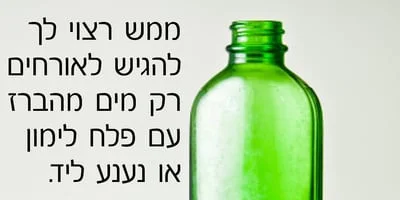
Rosenberg Text MF Font
Rosenberg Text MF Font is ideal for extensive reading applications including academic journals, literary publications, comprehensive reports, professional documents, scholarly articles, newspaper columns, magazine body text, and digital content platforms. This highly legible typeface ensures optimal reading comfort across both print and screen environments for extended text consumption.
What makes Rosenberg Text MF Font exciting is its exceptional balance between readability and character distinction. The font features carefully optimized letterforms with subtle serifs and balanced proportions that reduce eye strain during long reading sessions. Its sophisticated design incorporates refined details and consistent spacing that enhance text flow while maintaining enough personality to distinguish it from generic text fonts.
The Rosenberg Text MF Font family offers comprehensive typographic solutions including regular, italic, bold, and bold italic variants. Each style maintains perfect optical consistency across different weights while providing clear hierarchical distinction for complex document structures. The family also includes small caps, old-style figures, and extended punctuation sets for professional typography applications.
Editorial professionals consistently choose Rosenberg Text MF Font for projects demanding superior readability and typographic excellence. Whether publishing academic materials, creating corporate communications, or developing digital content platforms, this font provides exceptional performance and reader comfort. Its technical precision and elegant character make it an indispensable tool for publishers, editors, and content creators who prioritize both functionality and aesthetic quality in their textual presentations.